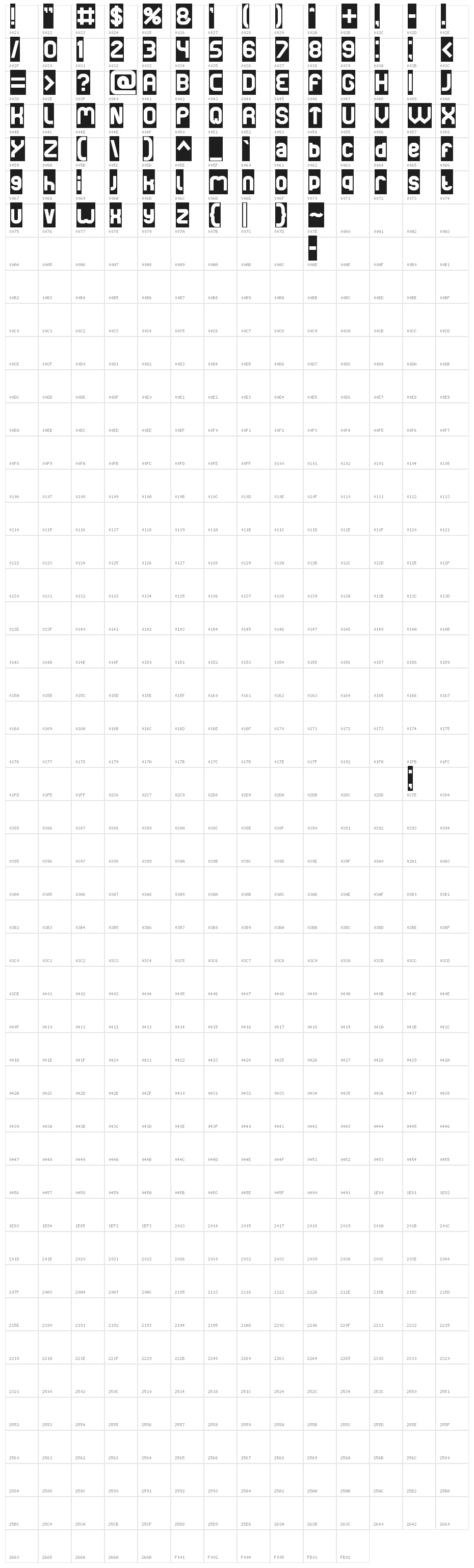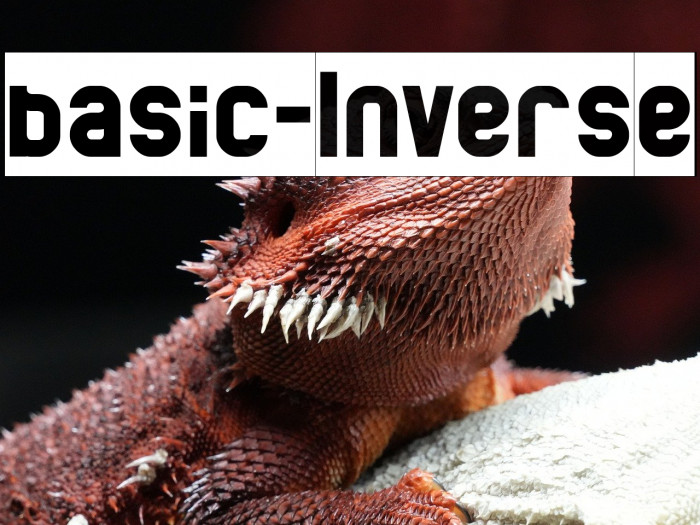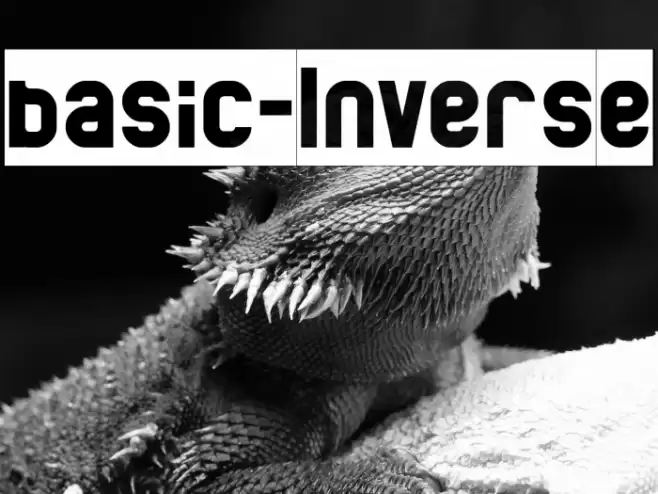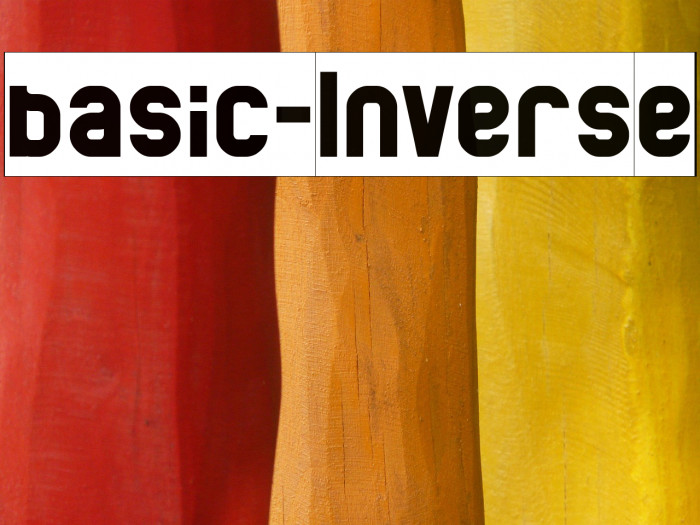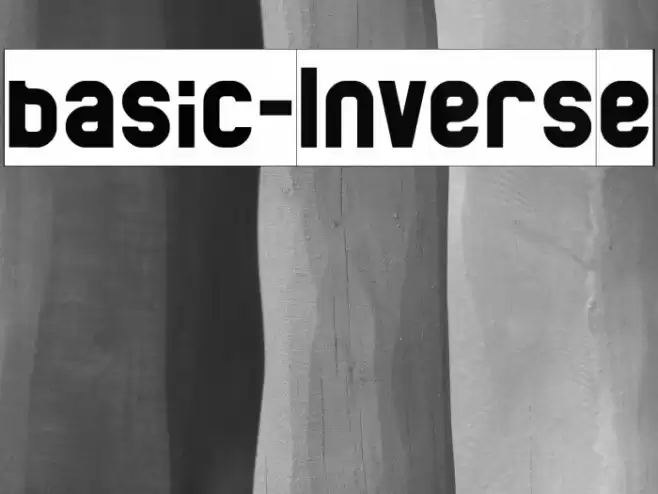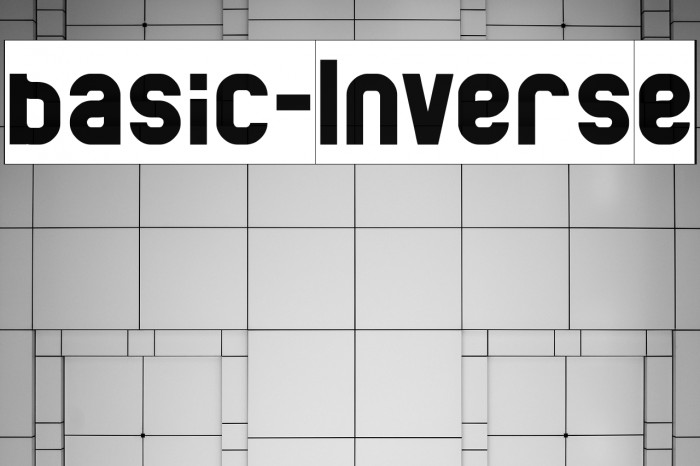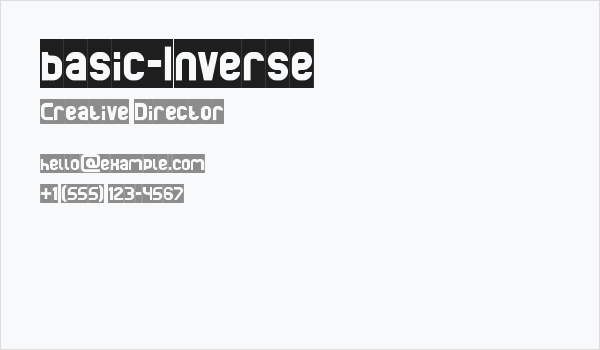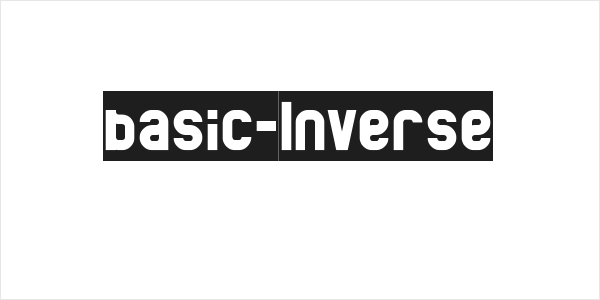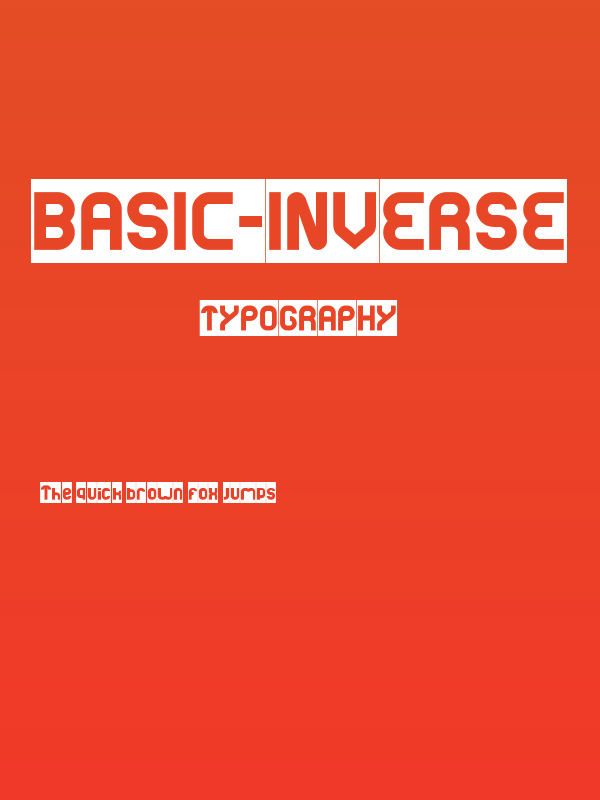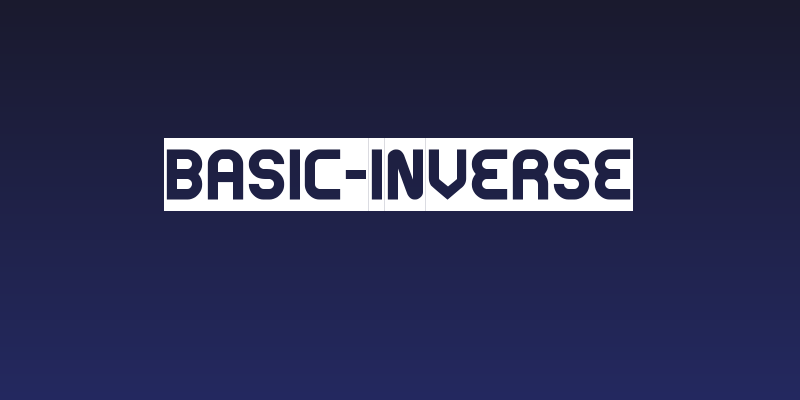
basic-Inverse Font
basic-Inverse Description
This font features a bold and geometric style with a modern twist. The characters are constructed with thick, uniform strokes that create a strong visual impact. The design incorporates unique cutouts and angles, giving it a futuristic and digital feel. The uppercase and lowercase letters maintain a consistent weight, enhancing readability while adding a distinctive flair. The numerals and special characters follow the same design principles, ensuring a cohesive look across all glyphs. This font is ideal for projects that require a bold statement and a contemporary aesthetic.